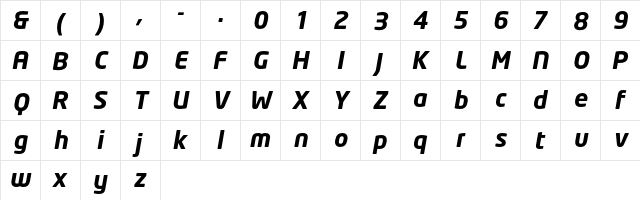
NeoTech Bold Italic Font Preview
Design Context for NeoTech Typeface
NeoTech channels digital-age aesthetics through its sharp, structured letterforms — ideal for brands that want to signal innovation. The dynamic lean of this cut emphasises speed and emphasis in any layout. Its bold stroke weight gives it real presence on the page.
Pro Tip: Try NeoTech with generous letter-spacing in UI labels and navigation — the geometric forms benefit from room to breathe.